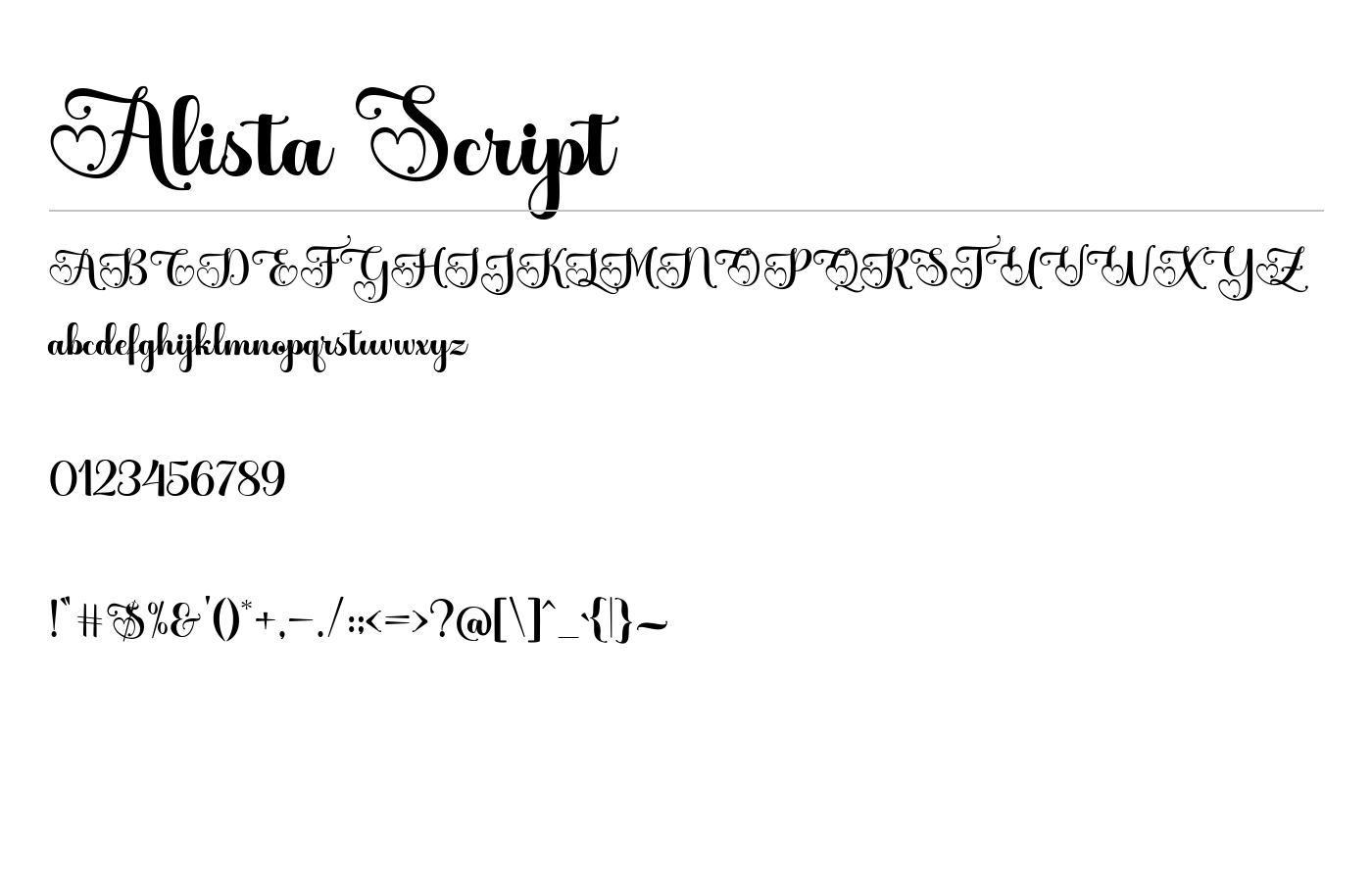
Alista Script Font is a decorative script typeface featuring elegant, flowing letterforms with charming heart-shaped flourishes, especially in uppercase letters. Its medium weight and stylish swashes make it ideal for romantic or feminine designs, perfect for invitations, branding, and packaging that aim to convey elegance and warmth. This font adds a unique, handcrafted touch that works best in headlines and logos where a playful yet sophisticated personality is desired.
Alista Script Font
About Alista Script Font
| Font family | Alista Script Font |
| Designer | Letterfresh |